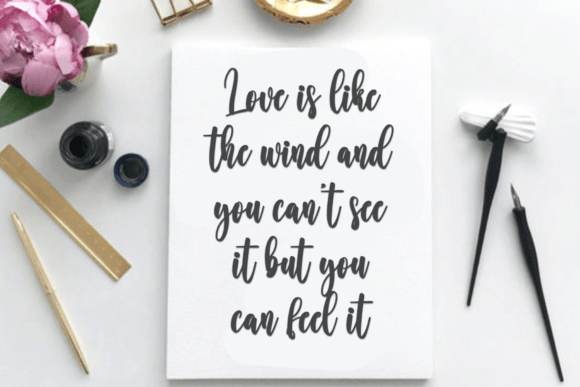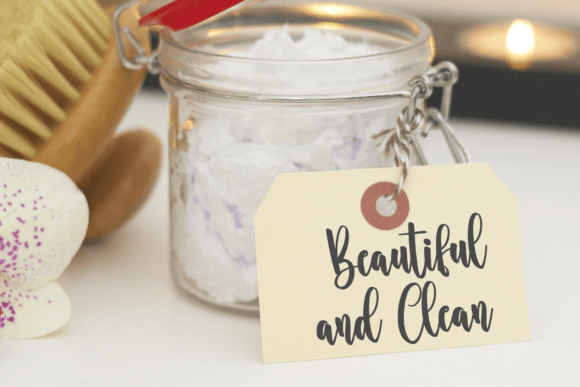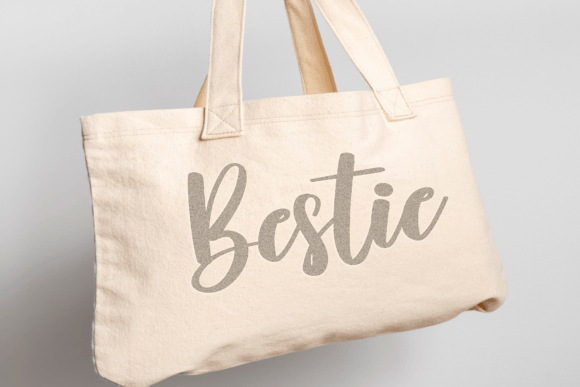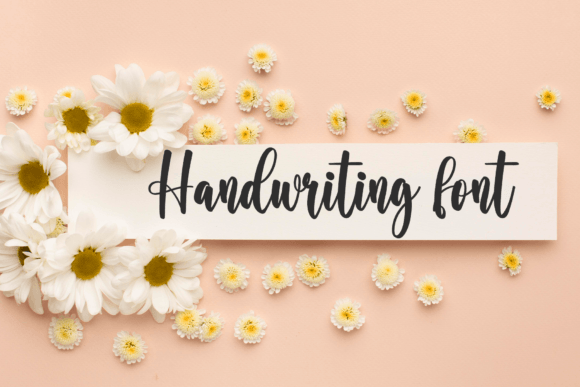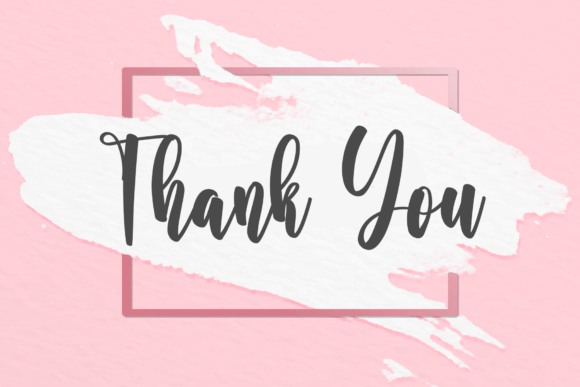
Hello Font
About Hello Font
“Hello” is not just a font; it’s a fancy handwritten typeface designed to elevate your creative work. This versatile font adds an extra touch of creativity and style to a variety of design projects. Whether you’re working on logo design, social media graphics, movie titles, book titles, or any other creative endeavor, Hello font is crafted to make your work stunning and visually appealing.
The fancy handwritten style of Hello font brings a unique and artistic flair to your designs. Its individualistic charm can enhance the personality of your brand or project, making it stand out in the crowd.
For logo design, Hello font becomes a distinctive element that communicates creativity and a personalized touch. The handwritten aesthetic adds a level of authenticity that resonates with audiences, contributing to the memorability of your brand.
In the realm of social media, where visual appeal is crucial, Hello font shines. Whether used for Instagram posts, Facebook covers, or other social media graphics, the font adds a touch of sophistication and creativity to your online presence.
Movie titles and book titles benefit from the stylish allure of Hello font. Its fancy handwritten design can transform titles into eye-catching and memorable elements, setting the tone for the content that follows.
The versatility of Hello font extends to various creative projects, allowing you to explore its potential in different contexts. Its suitability for a range of applications makes it a valuable tool for designers looking to make a bold and artistic statement.
In conclusion, Hello font is more than just a typeface; it’s a design asset that invites creativity and uniqueness into your projects. Whether you’re creating logos, social media graphics, movie titles, or book titles, let Hello font be the elegant and fancy element that elevates your work, making it stunning and captivating for your audience.